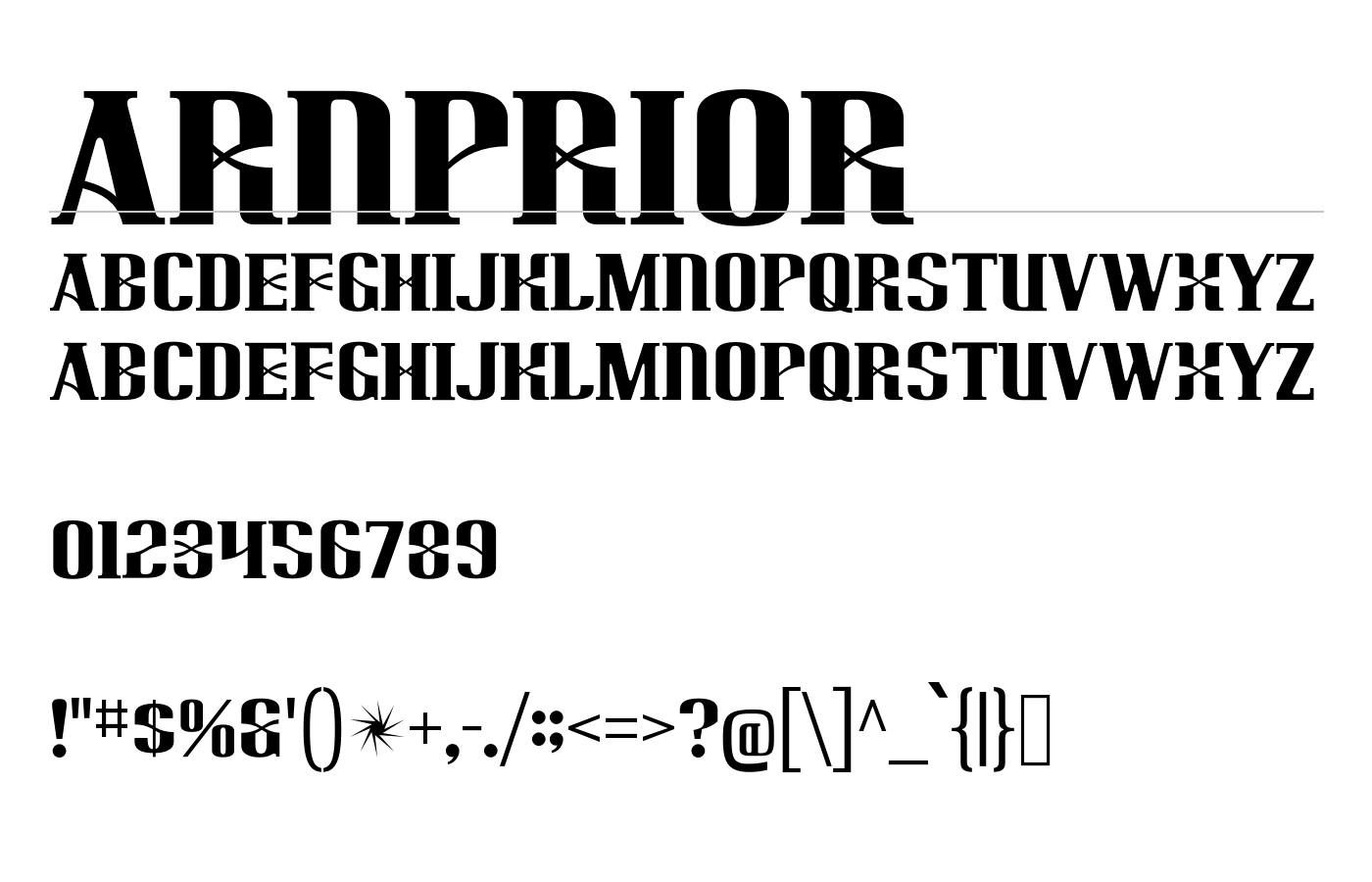
Arnprior is a bold, condensed serif typeface with a strong vintage character, featuring high contrast between thick and thin strokes and distinctive, bracketed serifs. Its unique letterforms with sharp, geometric details and stylized crossbars give it a historic yet dynamic feel, ideal for impactful headlines, logos, and branding where a bold and memorable statement is needed. This font works well in designs that seek a classic, authoritative tone with a touch of artistic flair.
Arnprior Font
About Arnprior Font